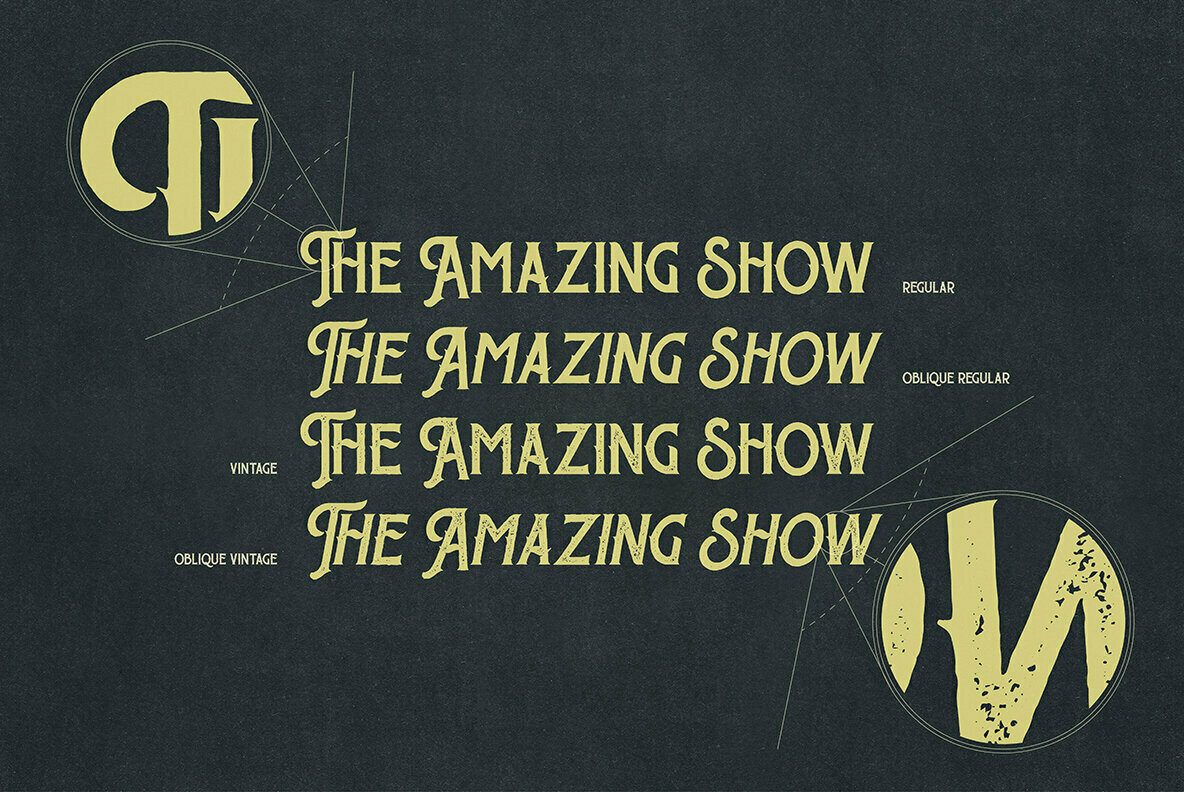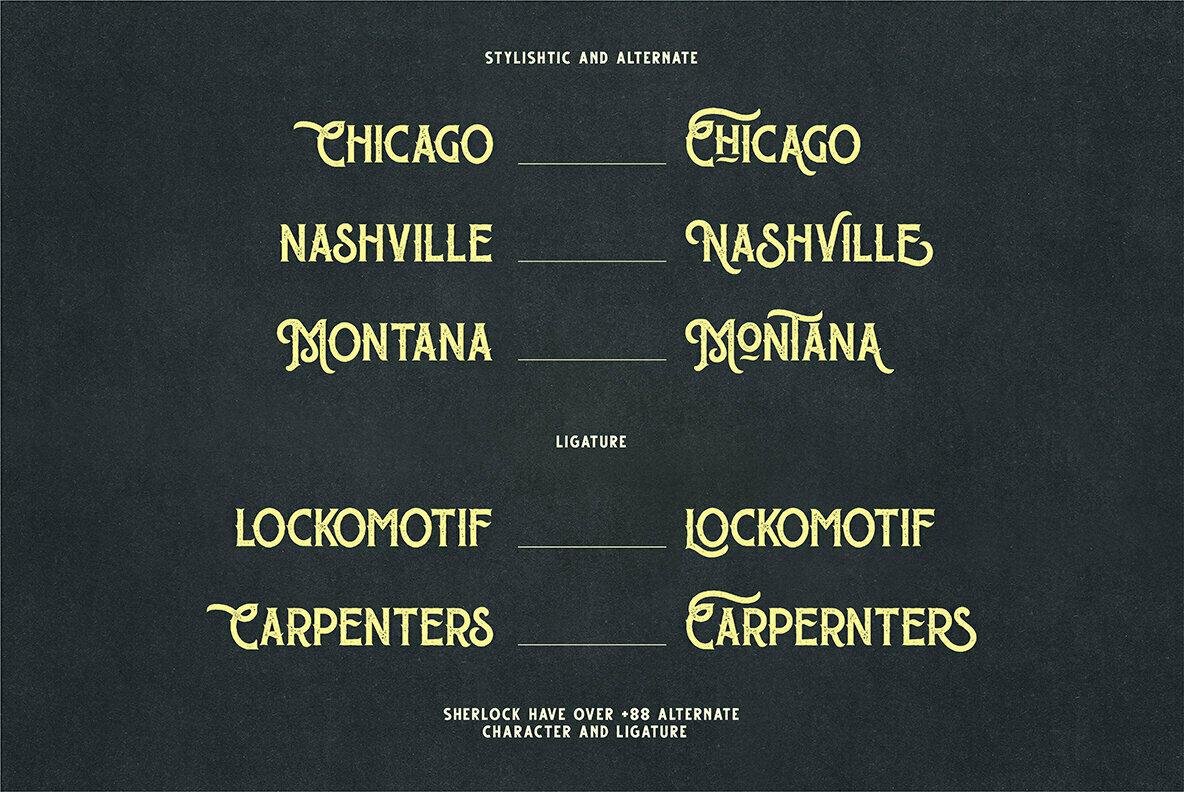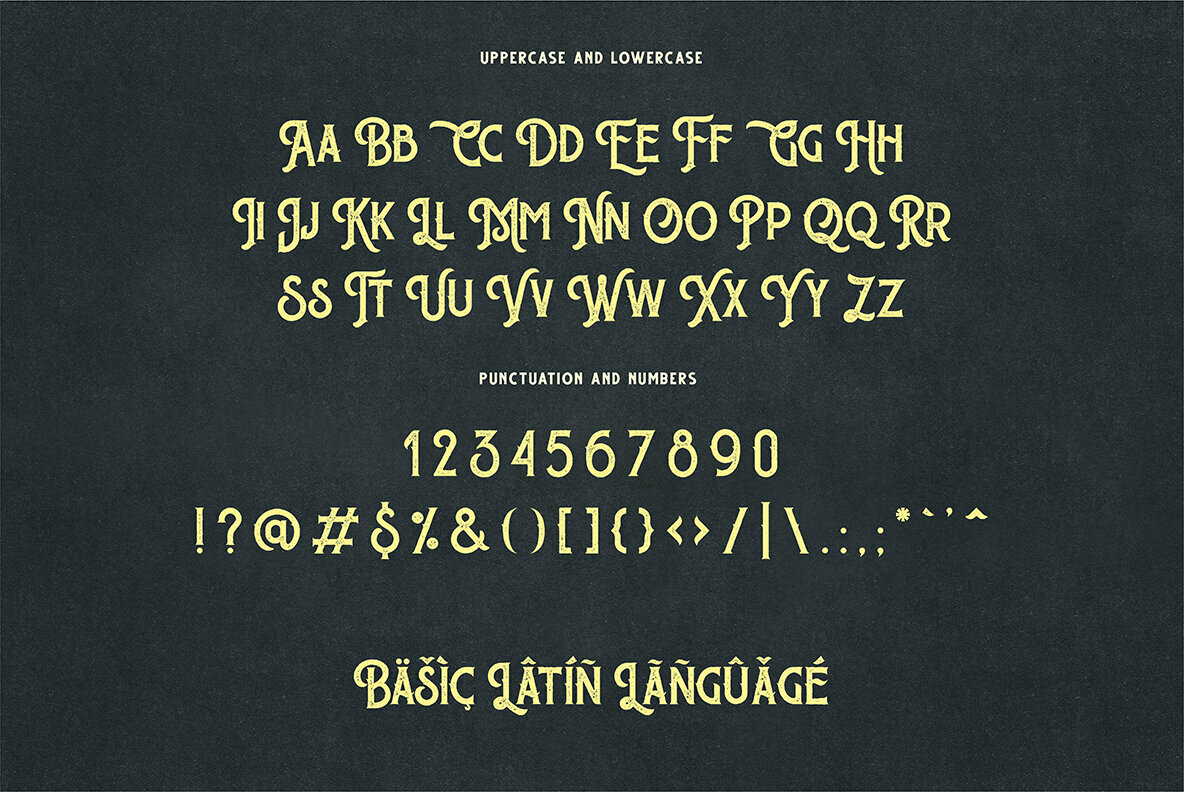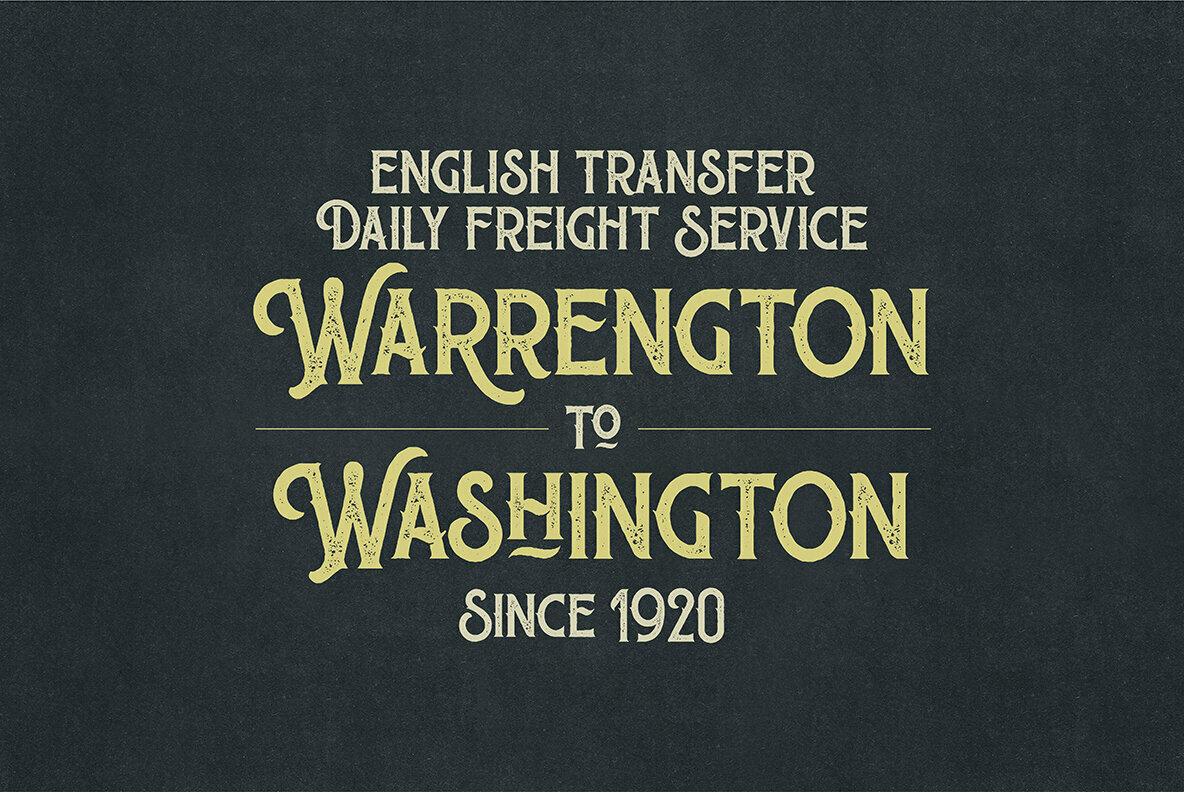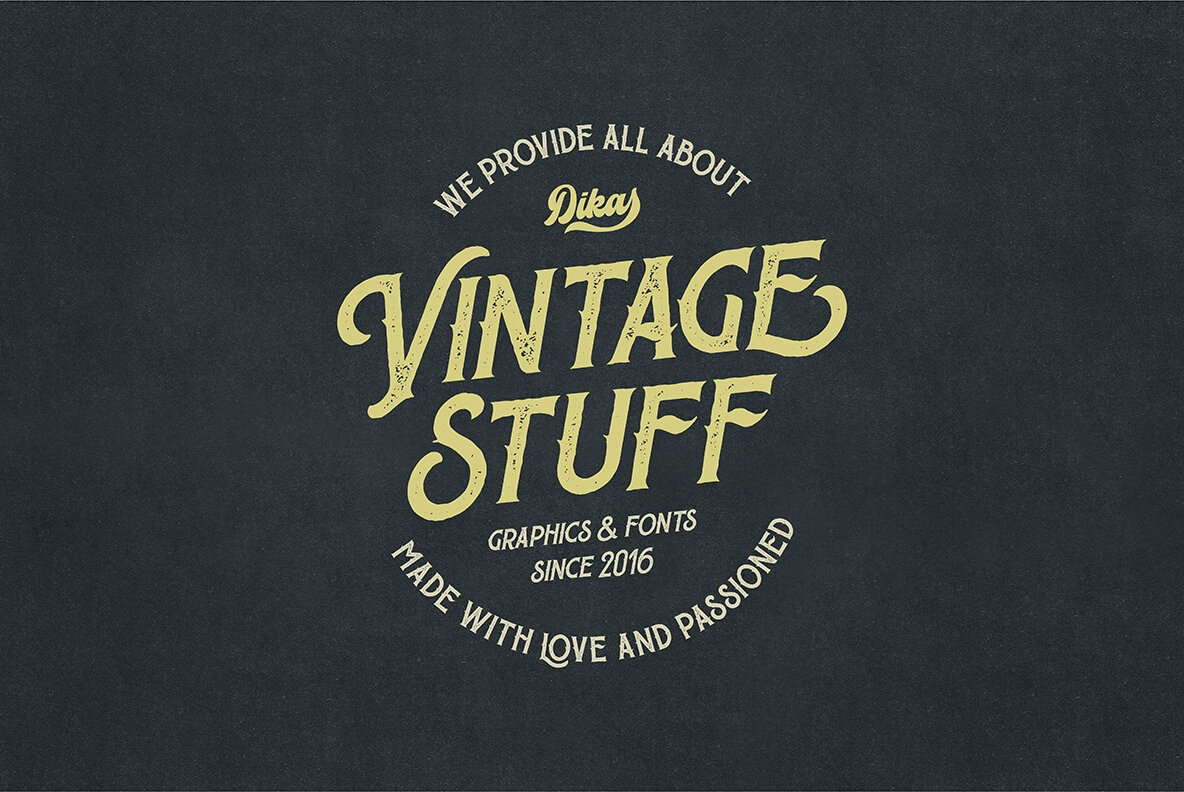
The Sherloks Font
The Sherloks Regular
The Sherloks Oblique
The Sherloks Vintage
The Sherloks Vintage Oblique
The Sherloks offers a nostalgic touch with its hand-drawn character, perfect for infusing vintage charm into your designs. Available in four distinctive styles—Regular, Oblique Regular, Vintage, and Oblique Vintage—this collection caters to a wide array of creative needs. Ideal for branding, logos, product packaging, invitations, quotes, t-shirts, labels, and posters, The Sherloks is an essential addition to any designer's toolkit.The Sherloks: Handcrafted Vintage Font Collection